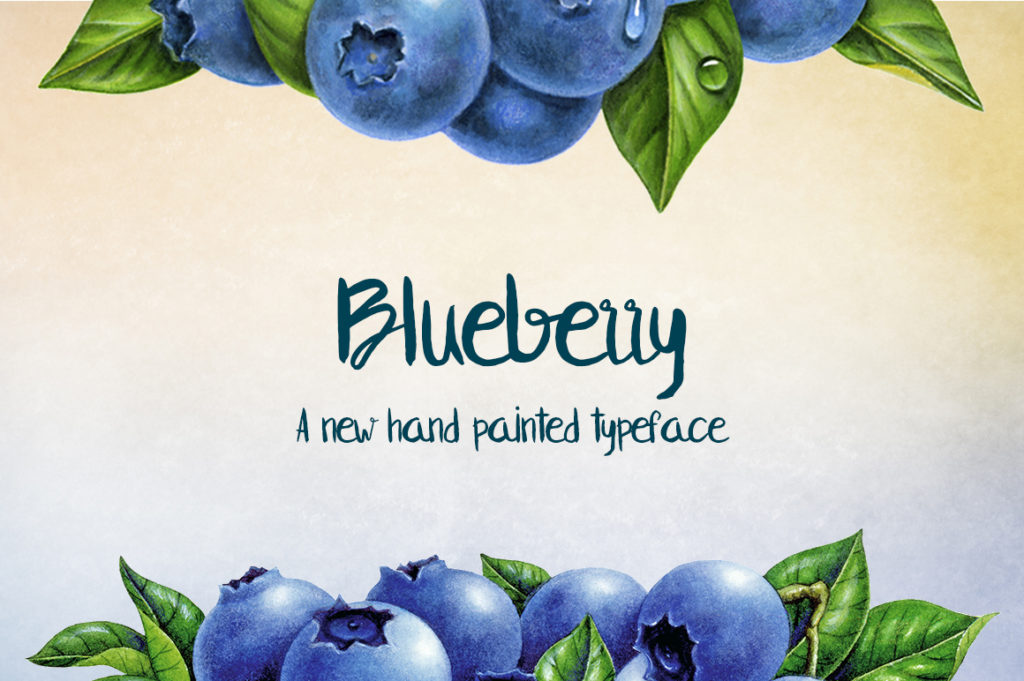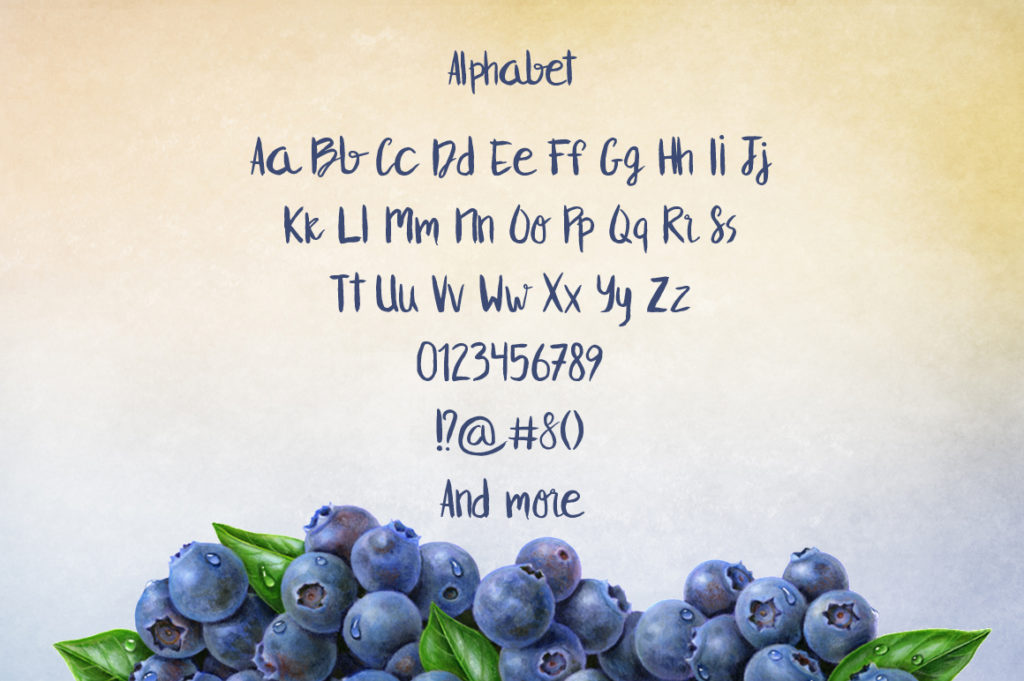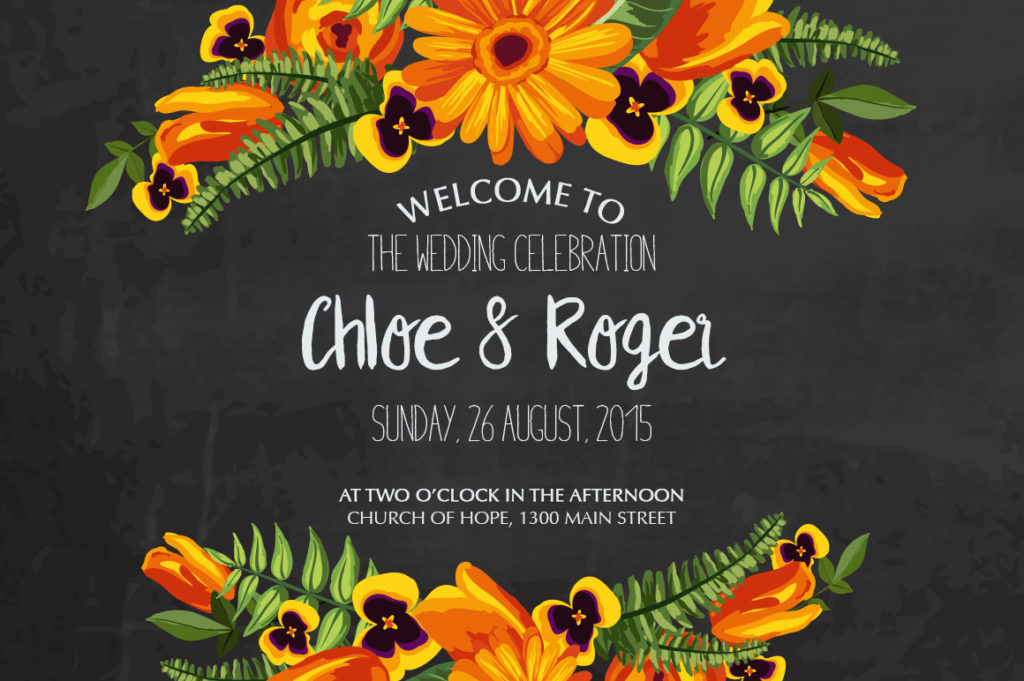
About Blueberry Font
About the Blueberry Font
The Blueberry font is a delicate hand-painted font. Each letter has been painted on paper, scanned to be digitized, and then digitally optimized. This process was repeated for every letter multiple times until the perfect composition was reached.
The result is a balanced and clear handwritten font.
Using Blueberry
Blueberry can be used for many purposes and as always, your imagination is the only limitation. However, it is very clear that Blueberry is very suitable for the following type of projects:
– Wedding Invitations– Baby Shower Decorations– Nursery Wall-art– Signs– Adding quotes to pictures– Convert to an embroidery font
Besides these purposes, Blueberry can also be perfectly used for creating elegant business cards and even letterheads.